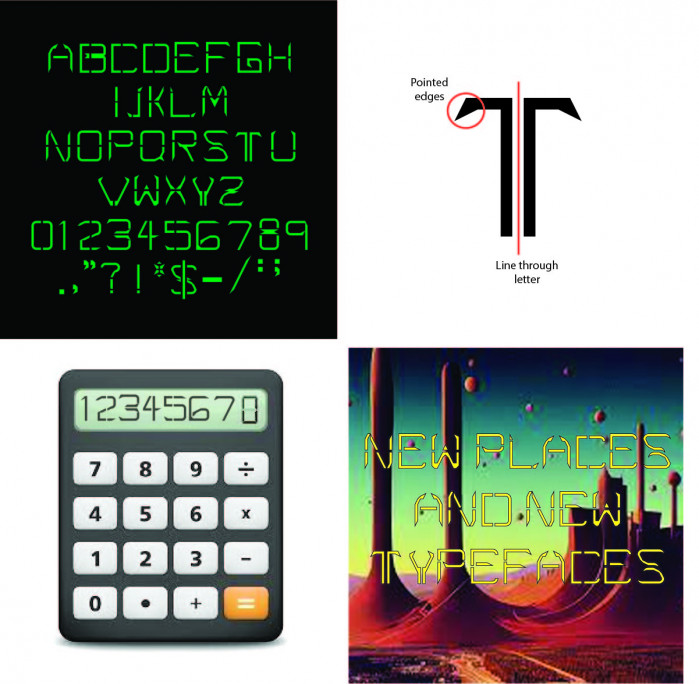
• A font that would look good in certain intances, whether it's trying to make it look futuristic or retro it just might do the trick for you. Based on Serif and has pointy edges with a line through each letter or number going either vrtically or horizontally giving it the name of Divided